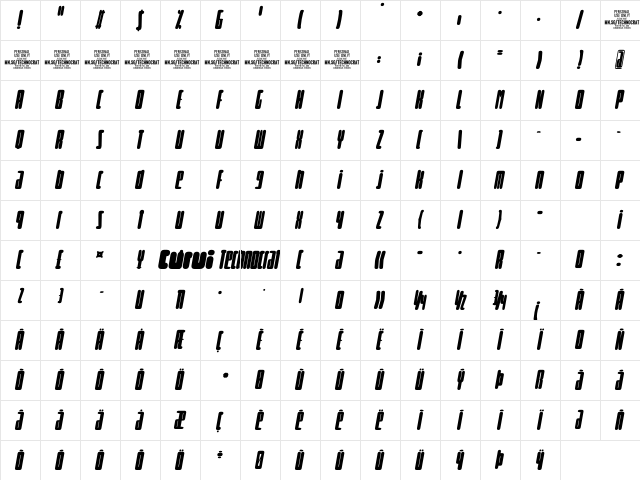
Curvi Technocrat PERSONAL Light Regular
Foundry: Mans Greback AB
Designer: Mans Greback
Design Context for Curvi Technocrat PERSONAL Light
Curvi Technocrat PERSONAL Light has a distinctly futuristic character, with geometric precision and clean angles that feel at home in technology, gaming, and sci-fi contexts. Its slender proportions lend an understated elegance to any composition.